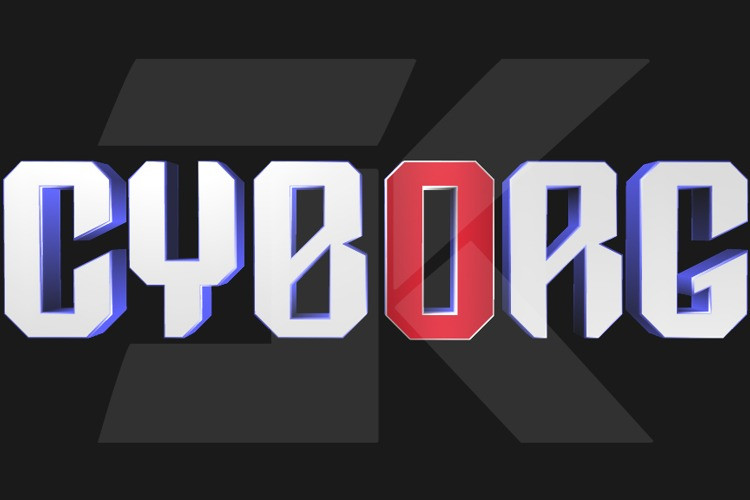
DC Cyborg Font
DC Cyborg Font, Font inspired by the graphic novel DC Cyborg.
This font was created for all forms of business and branding such as clothing, logos, skate boards and others according to your needs.